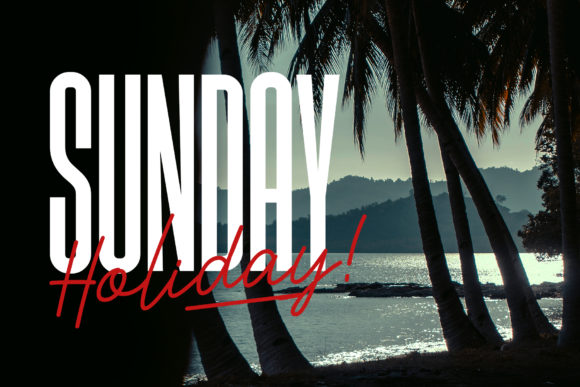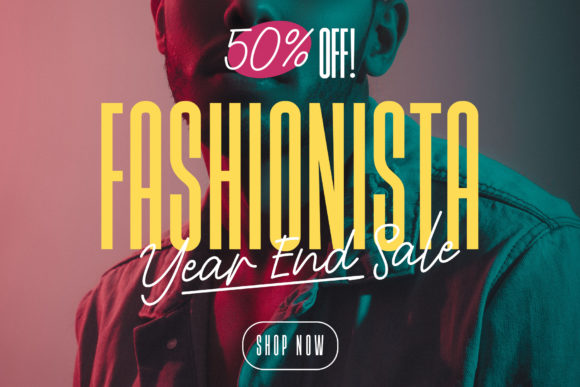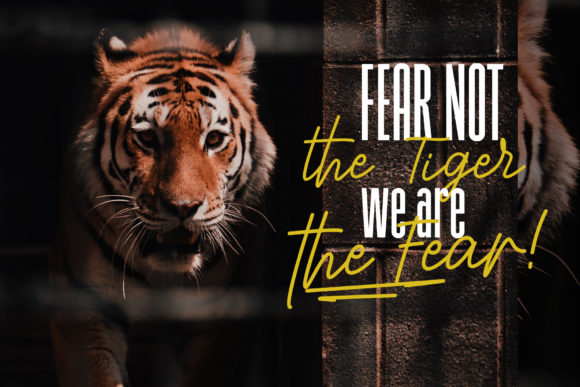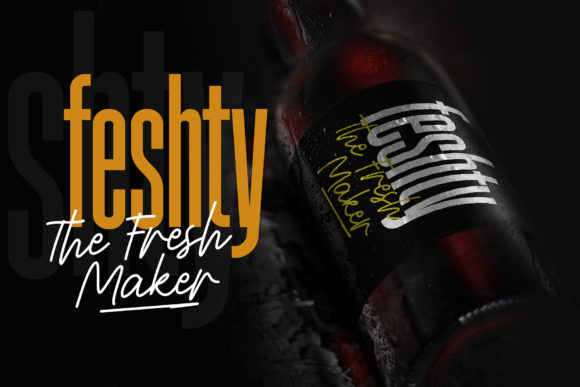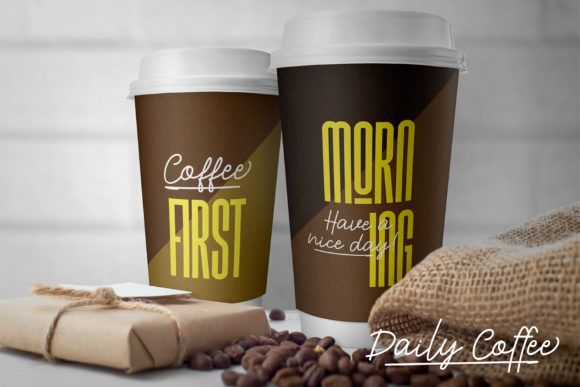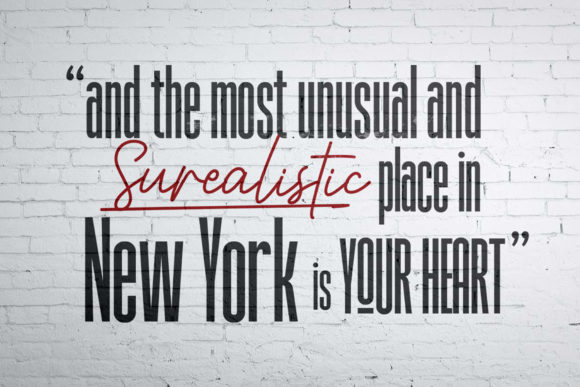
Discovering the Perfect Design Companion: Highrush Duo Font
Have you ever found yourself staring at a blank page, desperately searching for the right font to bring your creative project to life? It’s a familiar feeling for many designers, and it’s where the magic of the perfect design resource can truly shine.
For those moments when everything else just doesn’t feel quite right, we have the Highrush Duo Font – a stunning, high-quality font duo that exudes an authentic and sophisticated charm. With its sleek lines and elegant curves, this font duo is the perfect companion for designers looking to elevate their creative work.
Key Features of Highrush Duo Font
- High-quality design resource for creative projects, ideal for use in digital and print media.
- Includes two unique font styles: Highrush Duo Font Regular and Highrush Duo Font Bold, offering versatility for various design applications.
- Supports a wide range of languages, including Latin, Cyrillic, and Greek alphabets.
Honest Review: Highrush Duo Font
As a designer, I’m always on the lookout for high-quality design resources to elevate my creative projects. Recently, I stumbled upon the Highrush Duo Font, and I’m excited to share my honest review.
- ✨ The font’s unique, modern design makes it perfect for contemporary projects, from logos to editorials.
- ✨ Highrush Duo Font offers a transparent background, allowing for seamless integration with any design element.
- ⚠️ The font’s high-quality design comes at a cost – it’s not ideal for projects that require extensive text manipulation.
- ⚠️ Limited font pairing options may restrict its use in certain design scenarios.
Overall, I’m impressed with the Highrush Duo Font’s unique design and high-quality feel. While it may not be suitable for every project, it’s a valuable addition to any designer’s toolkit. With its free download and transparent background, it’s definitely worth checking out for your next creative project.
Getting the Most Out of Highrush Duo Font
To get the most out of Highrush Duo Font, experiment with different font sizes, colors, and combinations. This will help you achieve a unique look for your creative project.
Highrush Duo Font is ideal for various design projects, including logos, brochures, business cards, and social media graphics. Its high-quality design and transparent background make it a popular choice among designers.